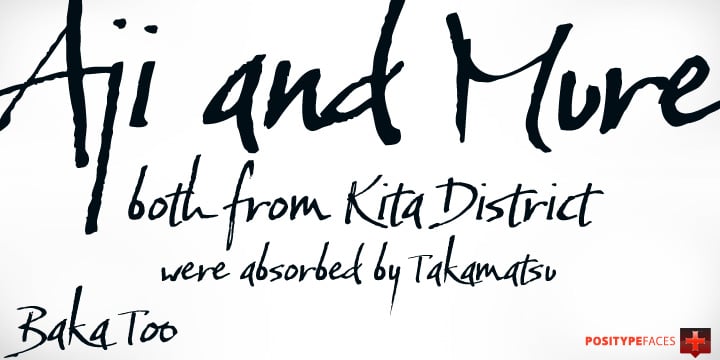
Baka Too Font is perfect for Japanese cultural exhibitions, anime-inspired branding, manga publication designs, sushi restaurant marketing, Japanese language learning materials, otaku culture projects, kawaii product packaging, and contemporary Asian fusion campaigns. This playfully authentic typeface excels in projects requiring Japanese cultural charm and contemporary appeal where traditional Eastern aesthetics meet modern pop culture design communication.
What makes Baka Too Font exciting is its delightful interpretation of Japanese pop culture aesthetics through playfully crafted letterforms that capture the whimsical charm and cultural authenticity of contemporary Japanese design. The font features spirited characters with anime-inspired proportions and kawaii details that convey fun, authenticity, and the irresistible appeal of Japanese pop culture that has captivated global audiences. Its cultural character makes it perfect for brands and projects celebrating Japanese heritage and the worldwide fascination with anime, manga, and kawaii culture.
Baka Too Font family includes multiple weights and cultural variations that enhance its Japanese appeal while providing design flexibility for pop culture and cultural applications. The family typically offers light, regular, medium, and bold weights, along with anime-inspired alternates, Japanese symbols, and kawaii ornaments that complement Japanese culture and pop culture design themes perfectly.
Whether you're developing Japanese restaurant branding, creating anime convention materials, or designing kawaii product campaigns, Baka Too Font Free Download provides the perfect cultural solution for projects requiring Japanese authenticity and pop culture appeal. This font's playful charm and cultural authenticity make it essential for brands connecting with audiences who appreciate Japanese culture and contemporary Asian pop culture trends.
The culturally crafted letterforms and Japanese-inspired proportions of Baka Too Font create immediate connections to Japanese pop culture while maintaining excellent readability across contemporary applications. Its distinctive kawaii personality and Japanese cultural symbolism make it an invaluable tool for designers working with Asian cuisine, pop culture, and cultural celebration brands. Download Baka Too Font today and add authentic Japanese charm to your creative projects with this culturally playful typeface that perfectly captures the delightful spirit of contemporary Japanese pop culture and traditional cultural authenticity.